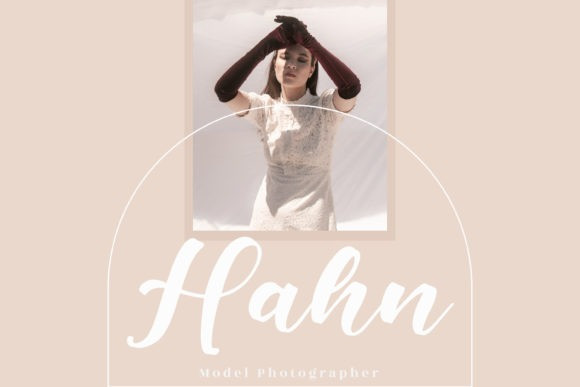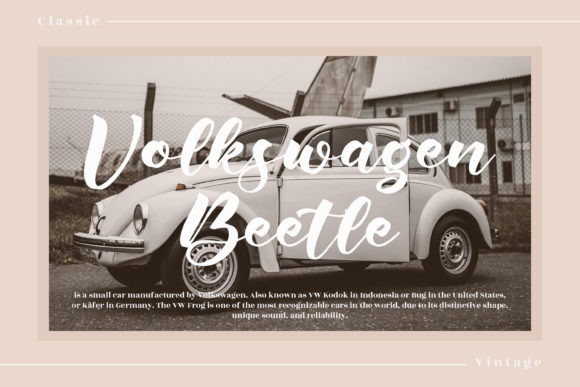
Beauty Rains Brush
Beauty Rains Brush Font
BeautyRains font with original handwriting brush style, looks very natural and beautiful. It is suitable for boutique brand, photography, magazine, quote, business card, logo, poster and many more. Script is equipped with opentype features such as ligature, contextual alternates, multilingual support and PUA Encoded.